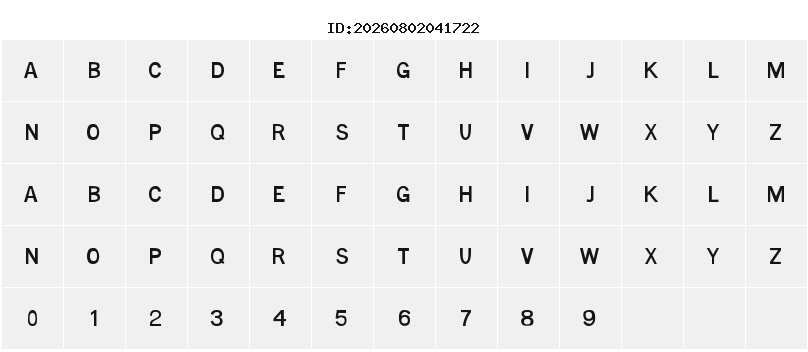
MTF Base Preview
• Font Name: MTF Base
• Full Font Name: MTF Base
• Designer: Miss Tiina
About MTF Base.ttf
MTF Base.ttf is a modern, elegant sans-serif font designed for ultimate readability and visual harmony. Perfect for branding, headlines, web design, and print materials.